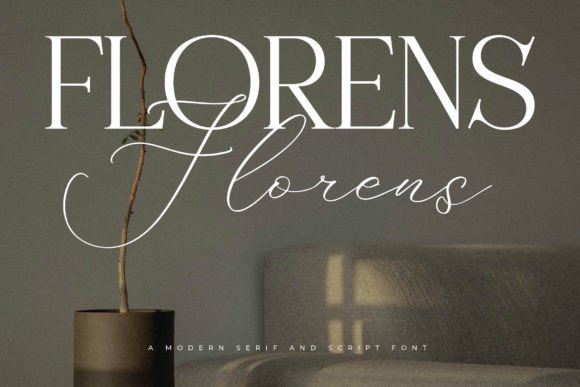
Florens Duo Font: Elevating Design with Modern Elegance
In the realm of typography, the right font can make all the difference in the success of a design project. Whether it’s for branding, editorial, or personal use, selecting a font that resonates with the intended audience is crucial. This is where Florens Duo Font comes into playβa thoughtfully crafted pair of fonts that brings together the best of modernity and elegance. Comprising a serif and a script font, Florens offers a versatile solution for designers looking to elevate their work.
An Overview of Florens Duo Font
Florens Duo Font is a carefully curated pair of typefaces designed to work in harmony. The serif font is characterized by its clean lines, sophisticated look, and timeless appeal. It’s perfect for projects that require a touch of elegance and professionalism. On the other hand, the script font adds a fluid, dynamic element to the duo, providing a personal and charming contrast to the serif’s structured elegance.
Sophistication and Timelessness: The Serif Font
The serif font in the Florens Duo is designed to exude sophistication. Its well-defined serifs and balanced letterforms make it highly legible, even at smaller sizes. This makes it an ideal choice for body text in editorial designs, such as magazines, books, and newspapers. Moreover, its classic look ensures that it remains timeless, avoiding the trend-based pitfalls that can make a design look dated.
For branding, the serif font can be used to convey a sense of tradition and reliability. Companies looking to establish a professional and enduring image can leverage this font to great effect. It’s also versatile enough to be used in digital and print media, from website content to business cards.
Fluidity and Personal Charm: The Script Font
The script font in the Florens Duo adds a touch of fluidity and personal charm to the pair. Its elegant strokes and cursive connections make it perfect for adding a creative and personal touch to designs. This font is particularly well-suited for wedding invitations, greeting cards, and other personal stationery, where a sense of warmth and intimacy is desired.
In branding, the script font can be used to add a unique and creative element. It’s ideal for businesses that want to stand out with a more personalized approach. When used in editorial designs, the script font can add visual interest and highlight specific sections or quotes, breaking up the monotony of body text.
The Power of Combination: Uses of Florens Duo Font
The true strength of Florens Duo Font lies in the combination of its serif and script fonts. Together, they offer a harmonious pair that can elevate a wide range of design projects. Here are some of the key areas where Florens Duo Font shines:
- Upscale Branding: The combination of sophistication and elegance makes Florens perfect for high-end brands looking to establish a refined and luxurious image.
- Wedding Invitations: The script font adds a touch of romance and personal charm, while the serif font provides a structured and elegant counterbalance.
- Editorial Designs: For magazines, books, and newspapers, Florens offers a readable and visually appealing solution that enhances the reading experience.
Design Tips for Using Florens Duo Font
To make the most of Florens Duo Font, consider the following design tips:
- Contrast is Key: Use the serif font for body text and the script font for headings or highlights to create a visually appealing contrast.
- Consider the Mood: Use the script font for a more personal and intimate feel, and the serif font for a professional and timeless look.
- Experiment with Sizes: Play with different sizes to create hierarchy and emphasis in your design.
Florens Duo Font offers a unique and versatile solution for designers looking to combine modernity with elegance. Its harmonious pair of serif and script fonts provides the perfect blend of sophistication, timelessness, fluidity, and personal charm. Whether it’s for upscale branding, wedding invitations, or editorial designs, Florens delivers a contemporary and classic aesthetic that can elevate any project. By incorporating Florens Duo Font into your design repertoire, you’re equipped to create visually stunning and effective designs that resonate with your audience.